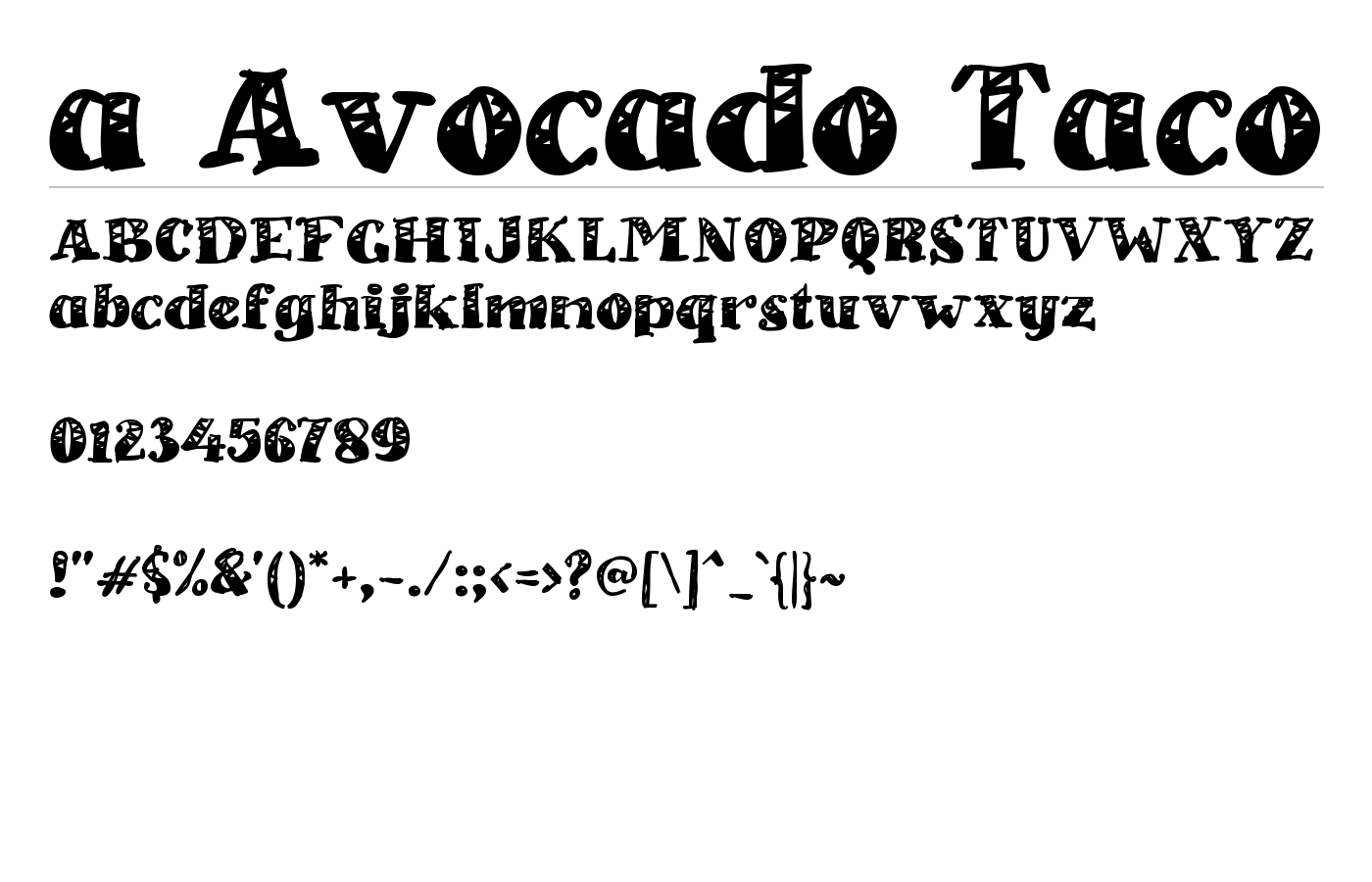
Avocado Taco is a playful, decorative serif font featuring bold, irregular letterforms with quirky triangular cutouts that add a whimsical, hand-crafted feel. Its sturdy weight and unique ornamentation make it perfect for eye-catching headlines, fun branding, and creative packaging where a lively, cheerful personality is needed. This font stands out with its strong character and charm, ideal for designs that want to convey warmth and friendliness with a hint of rustic flair.
a Avocado Taco Font
About a Avocado Taco Font